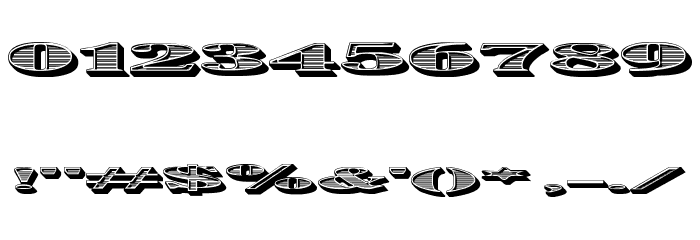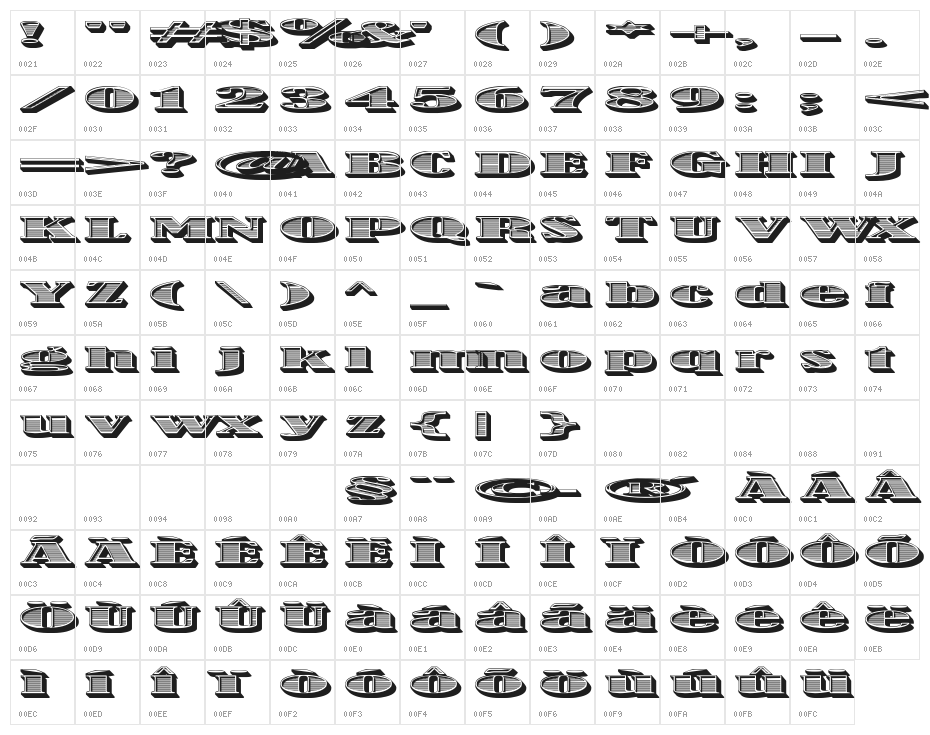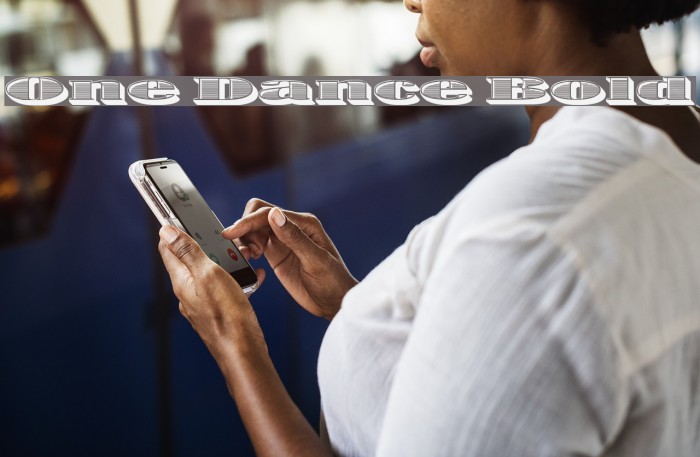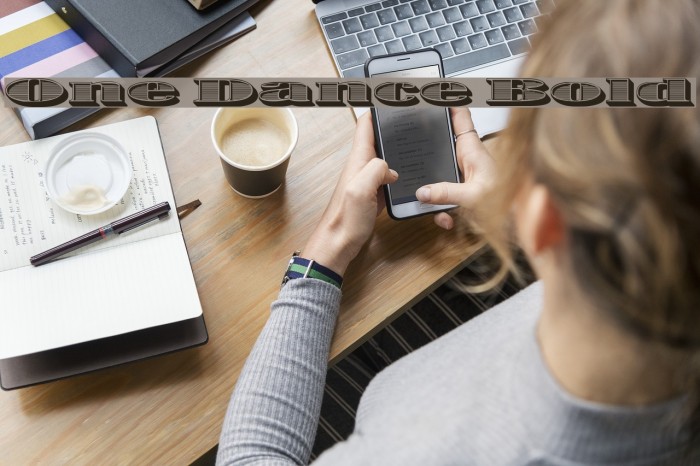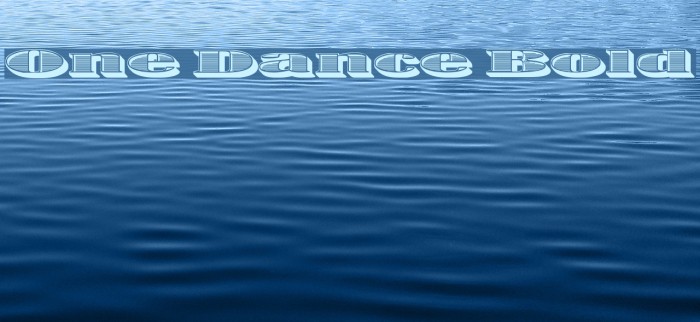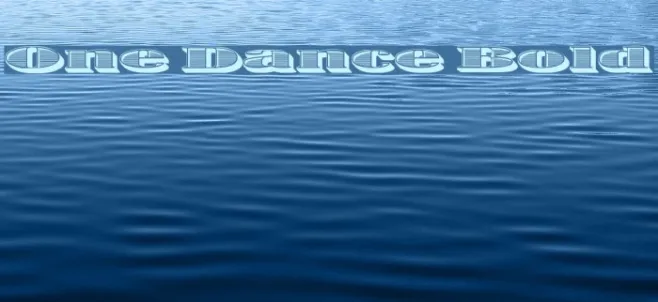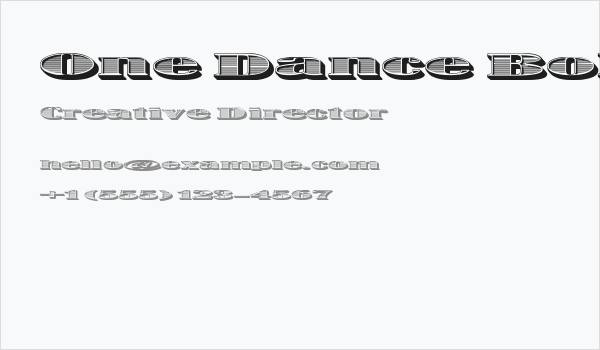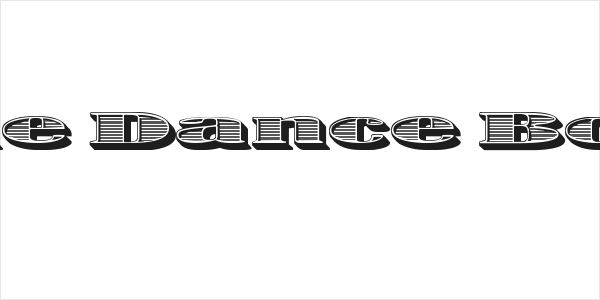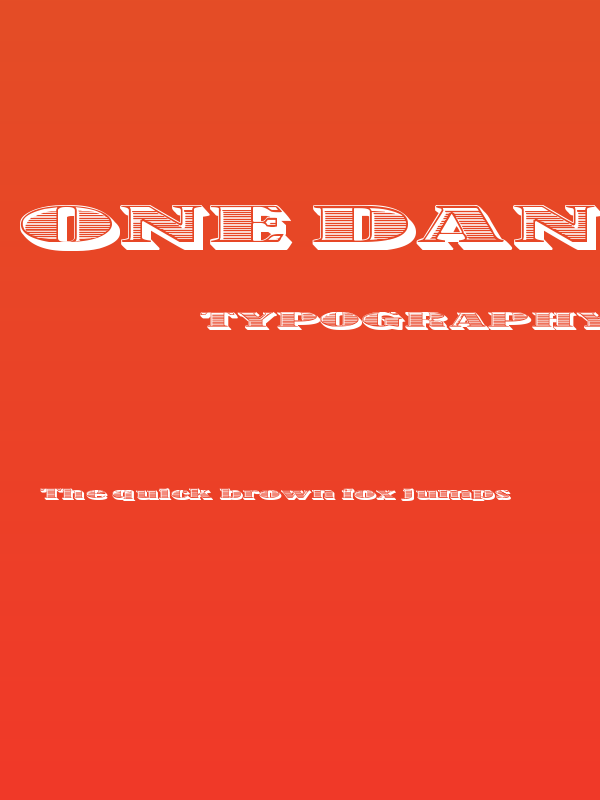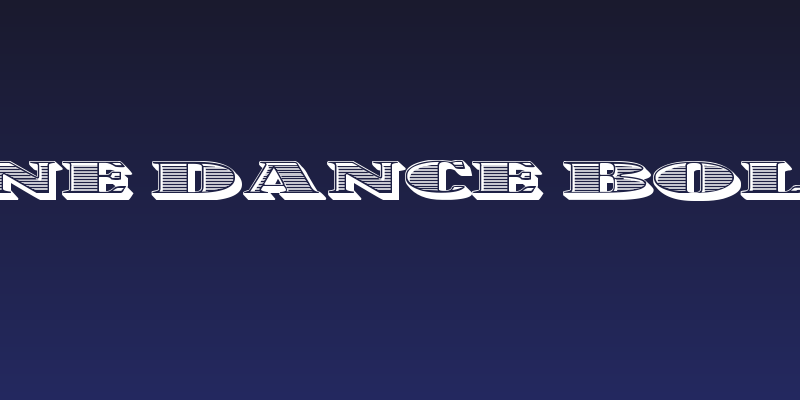
One Dance Bold Font
One Dance Bold Description
This font features a bold, decorative style with a three-dimensional effect created by its shadowed outline. The characters are uppercase and lowercase letters, numbers, and a variety of special symbols. Each letter is designed with a thick, solid core and a striped pattern that adds depth and visual interest. The font's playful and dynamic appearance makes it stand out, making it ideal for eye-catching designs. Its unique style is reminiscent of vintage signage or circus posters, offering a nostalgic yet modern twist.
| Proposed Projects | Ideal for posters, headlines, branding, and any project requiring a bold, eye-catching typeface. |